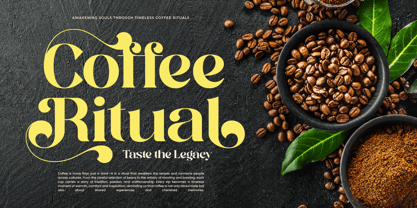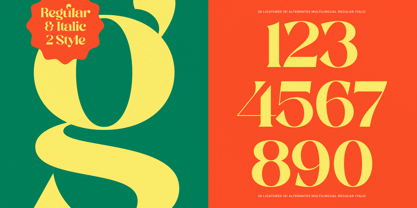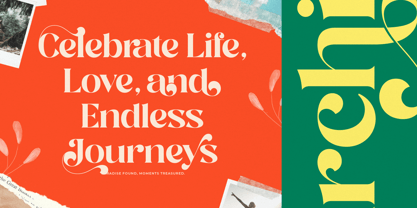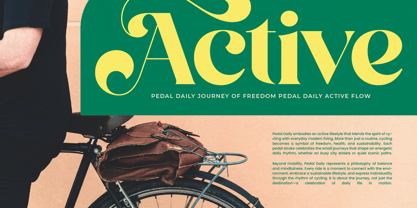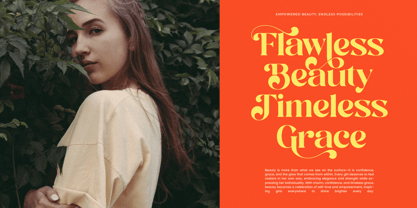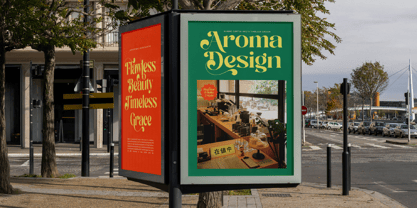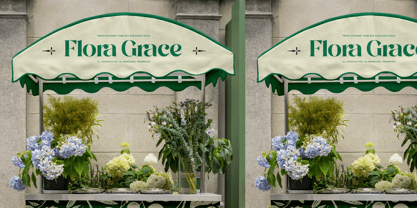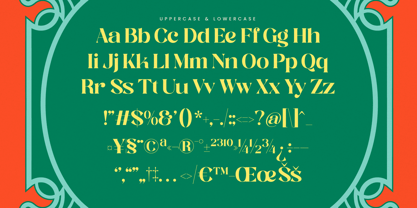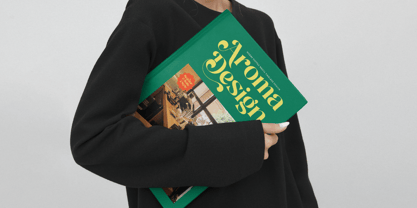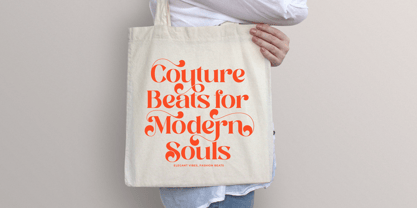
Royale Archive
by Timelesstype Studio
The Royale Archive Font Family was designed by Heru Utama Putra and published by Timelesstype Studio. Royale Archive contains 2 styles and family package options.
Royale Archive - Elegant Display Serif , from Timelesstype , Suitable for any projects such as: logos, branding projects, homeware designs, product packaging, mugs, quotes, posters, shopping bags, t-shirts, book covers, name card, invitation cards, greeting cards, label, photography, watermark, special events, and all your other luxury and beautiful projects that need a Luxury Serif taste.